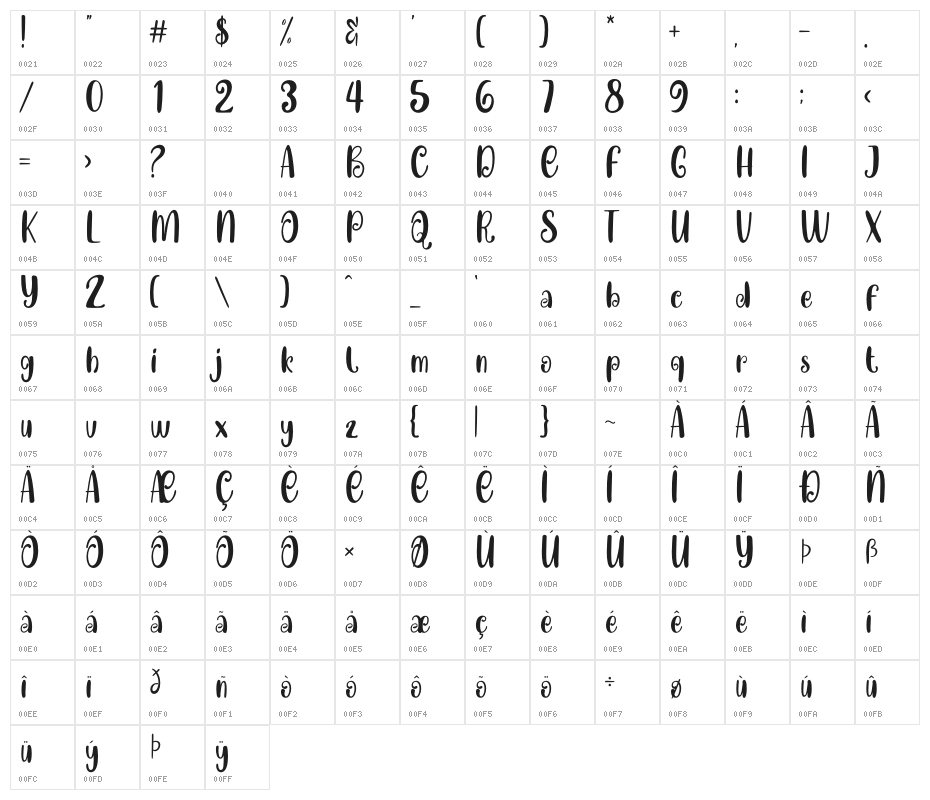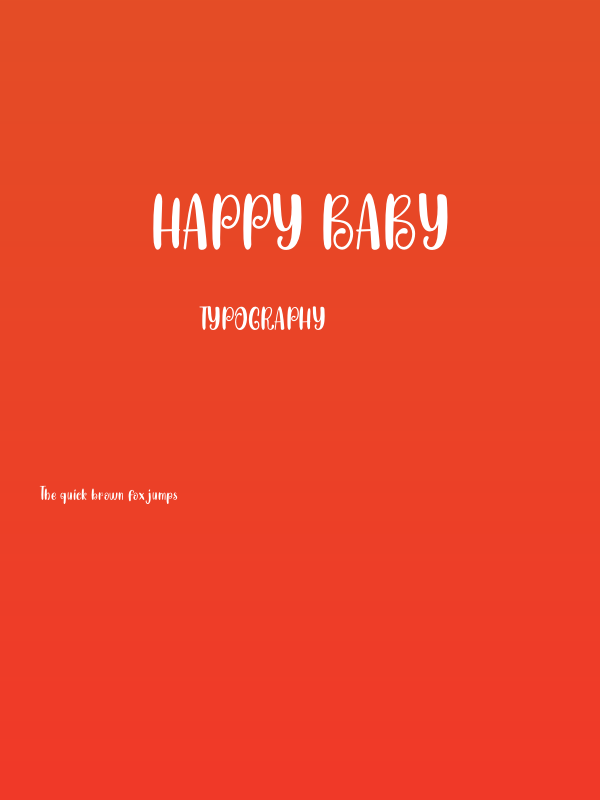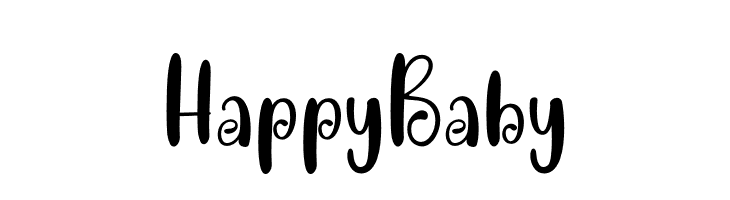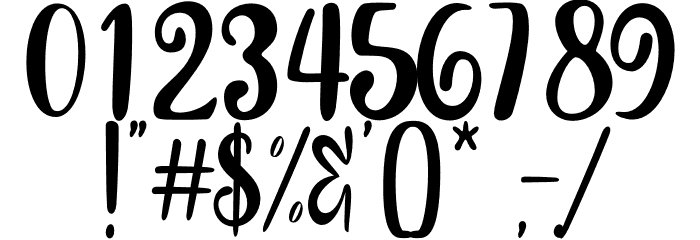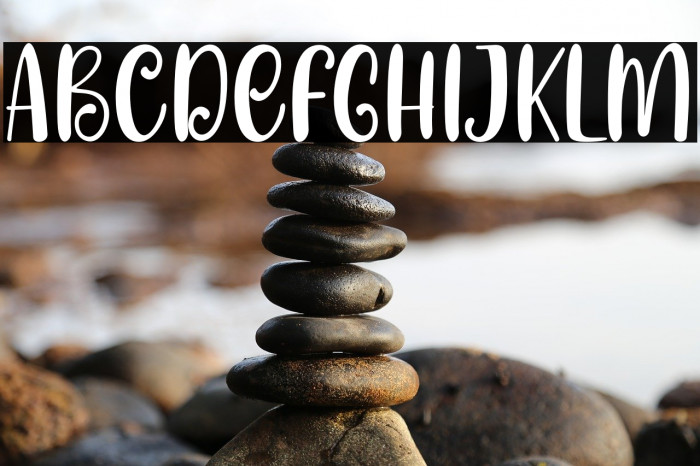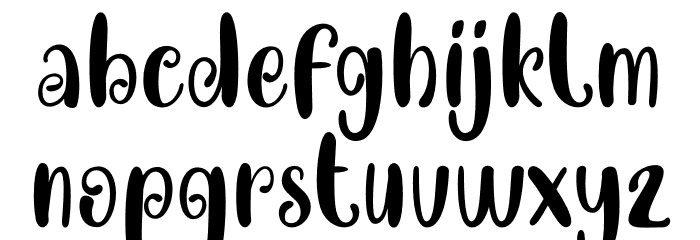
Happy Baby Font
Happy Baby Description
This playful and whimsical font features a handwritten style with a lively and energetic feel. The characters are bold and rounded, with a slightly irregular baseline that adds to its charm. The uppercase letters are tall and narrow, while the lowercase letters are more rounded and compact. The numbers and special characters maintain the same playful aesthetic, making it suitable for creative and informal projects. The font's unique style is perfect for adding a touch of fun and personality to any design.
| Proposed Projects | Ideal for children's books, greeting cards, playful branding, and creative posters. |